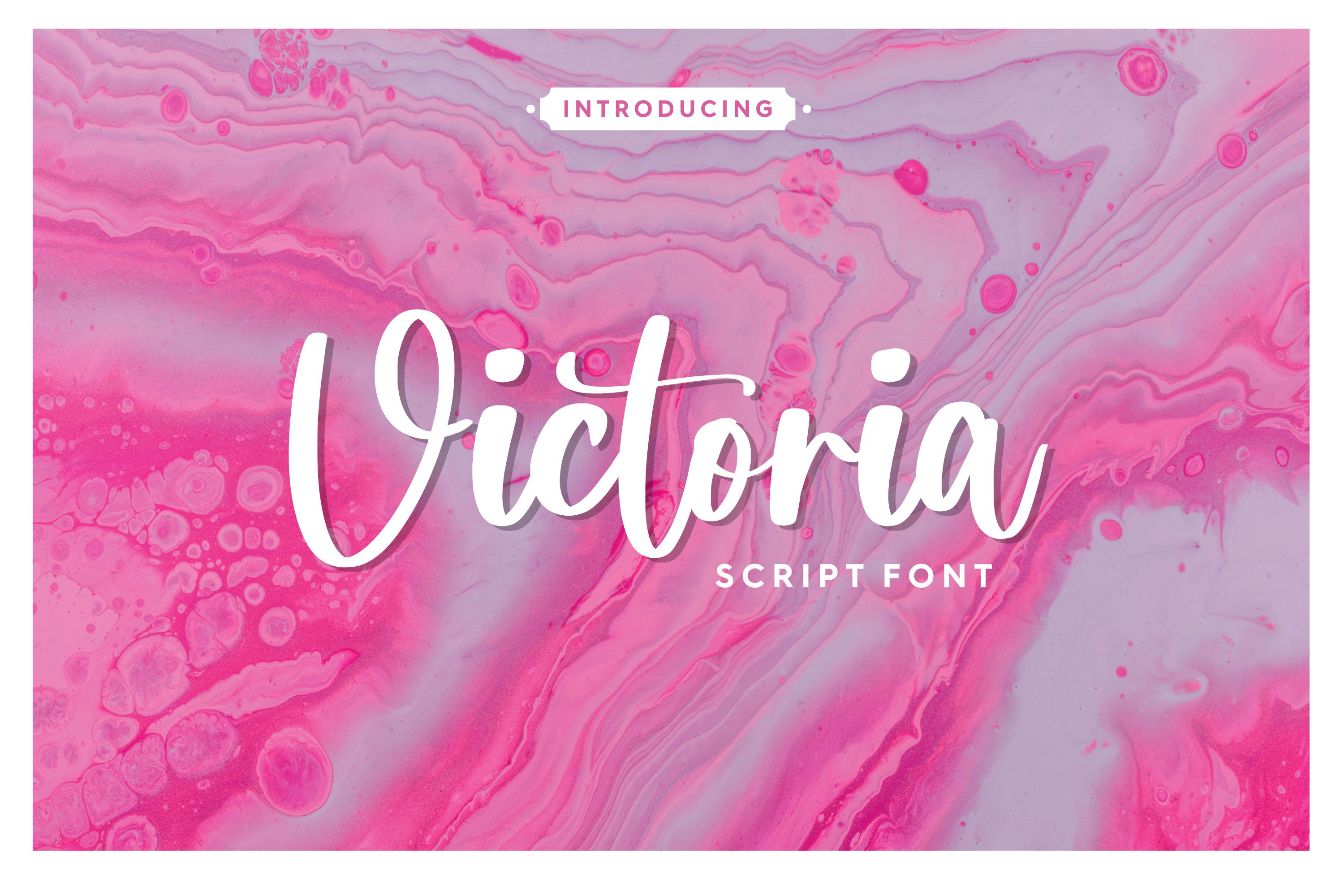
Victoria - Script Font
Proudly Present, Victoria Font
Victoria embodies fun, quirkiness and authenticity. This enchanting handwritten font will turn any creative idea into a true standout.